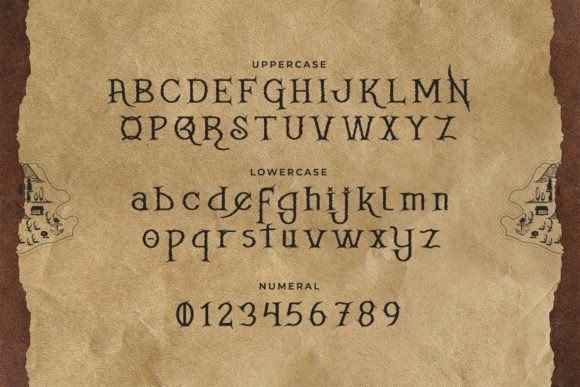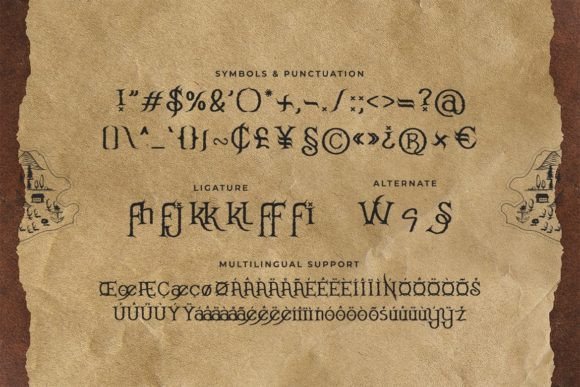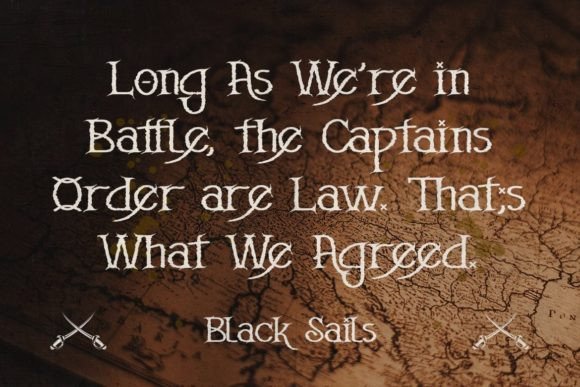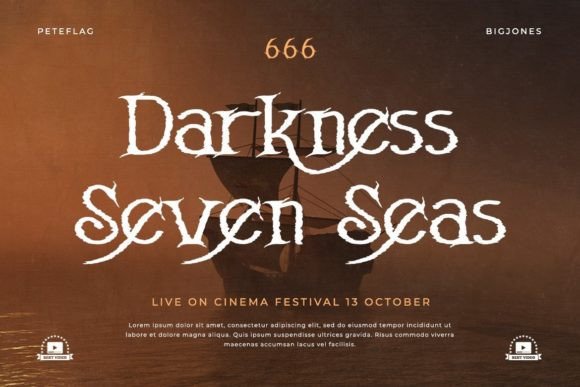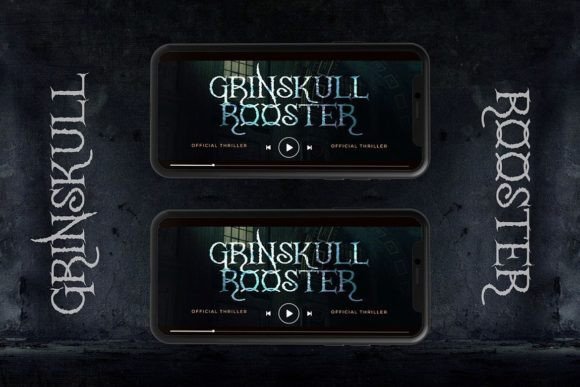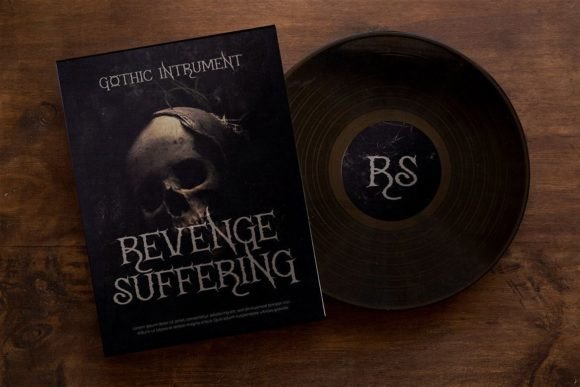
Introduction to Jack Skull Font
Jack Skull is a pirate fantasy font that will immediately take you into adventure vibes.
This font will be the ideal choice for any movie, game, or pirate-themed design you wish to develop This font is PUA encoded which means you can access all of the amazing glyphs and ligatures with ease.